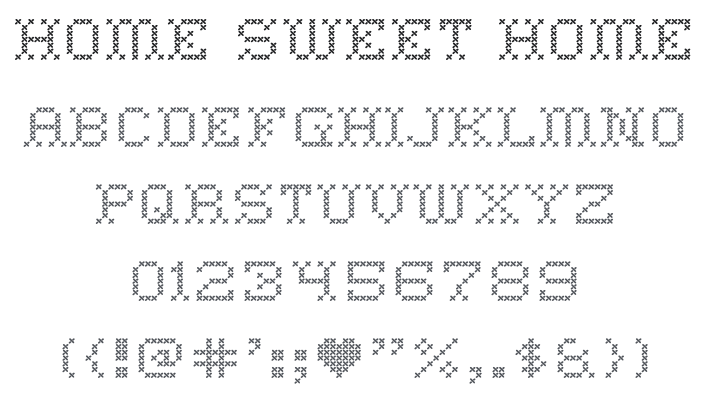
Home Sweet Home Font Family
About Home Sweet Home
Home Sweet Home is a sweet, nostalgic cross-stitch display typeface where every letter is rendered as if embroidered with X-shaped stitches on fabric — neat, grid-like, and thoroughly charming. Available in Regular and Outline variants. Perfect for craft blogs, handmade product labels, rustic greeting cards, cozy home décor prints, and anything needing genuine DIY warmth and rural, sympathetic appeal.